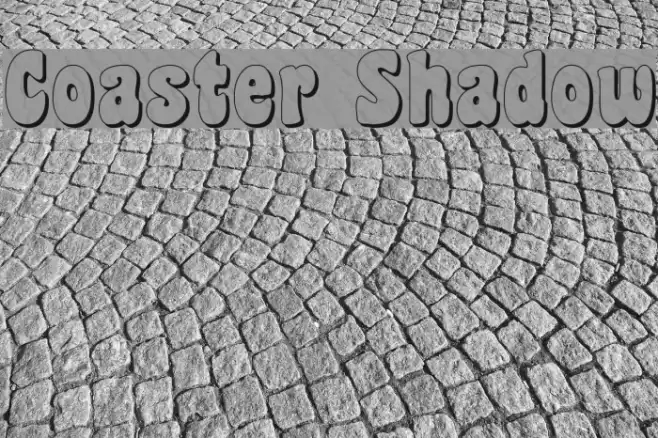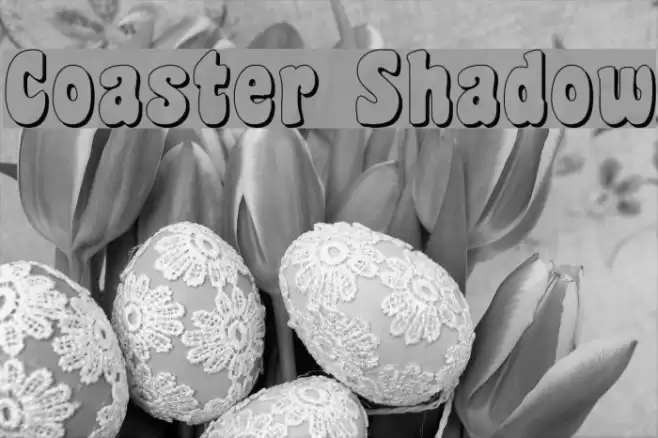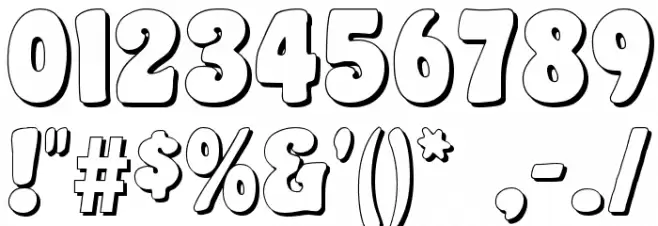
Coaster Shadow Font
Coaster Shadow Description
This playful and bold font features a shadow effect that adds depth and dimension to each character. The letters are rounded and thick, giving them a friendly and approachable appearance. The shadow creates a sense of movement and dynamism, making it ideal for eye-catching designs. The font maintains a consistent weight throughout, ensuring readability while adding a touch of fun. Its unique style is perfect for projects that require a lively and energetic vibe, such as children's books, posters, or playful branding. The characters are well-spaced, providing a balanced look that enhances its overall appeal.
A bold, playful font with a shadow effect, perfect for lively designs from Crazy fonts.
- Proposed Projects: Ideal for children's books, posters, playful branding, and eye-catching designs.
- Overall Style: Playful, Energetic